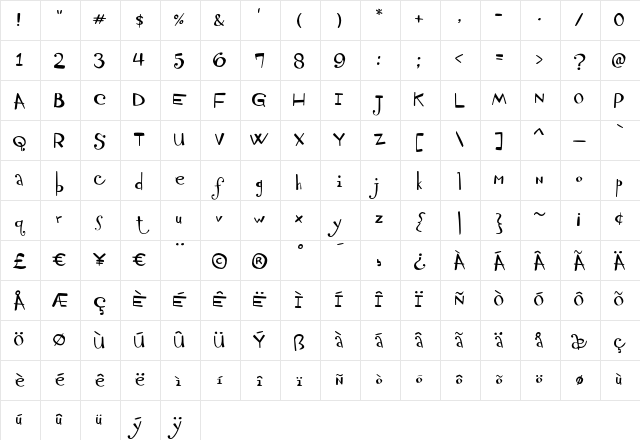
DayDream Regular
Foundry: Fonthead Design Inc.
Designer: Ethan Dunham
Complete DayDream Regular glyph index. Displaying only characters natively supported by DayDream Regular font.
Design Context for DayDream
DayDream is a composed and adaptable typeface that performs quietly and consistently across a wide range of design contexts.